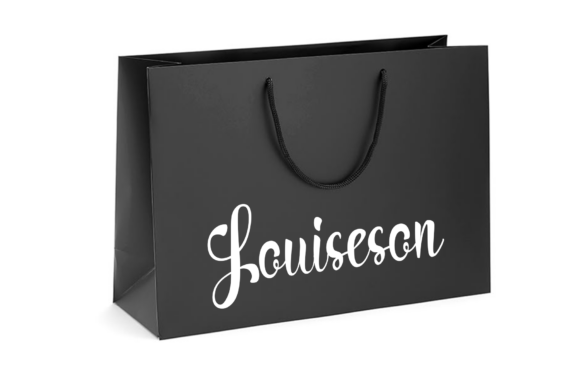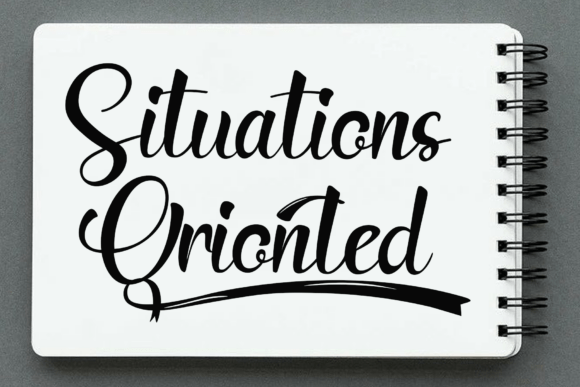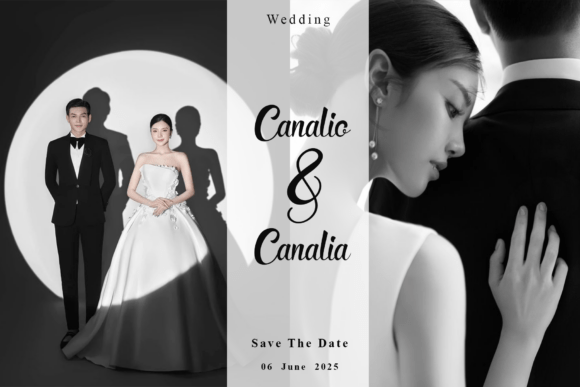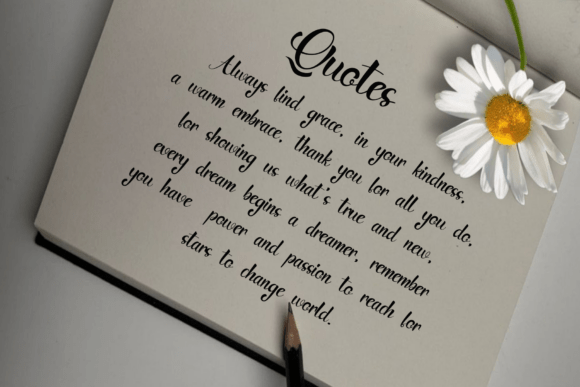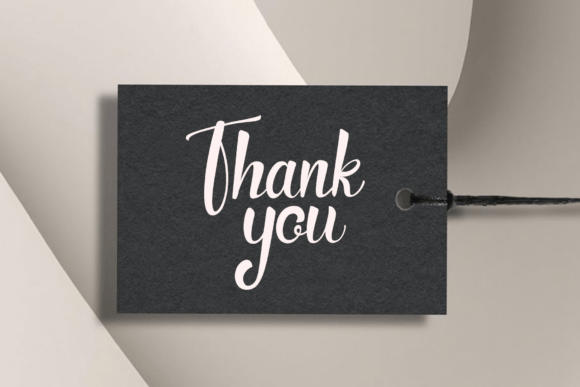
Introducing Graduation Font: Elevate Your Designs with Timeless Elegance
Are you looking for a font that exudes sophistication, elegance, and a touch of modernity? Look no further than Graduation Font, a stylish handwritten font that is sure to take your designs to the next level. Inspired by timeless classic calligraphy, Graduation Font boasts a contemporary atmosphere and impeccable form, making it the perfect choice for designers and crafters seeking to add a touch of refinement to their projects.
The Inspiration Behind Graduation Font
Graduation Font draws inspiration from the world of classic calligraphy, where the art of beautiful handwriting is revered. The font’s creator aimed to capture the essence of traditional calligraphy and infuse it with a modern twist, resulting in a unique and versatile font that is both elegant and approachable. With its balanced and varied letterforms, Graduation Font is designed to enhance the beauty of your projects, whether you’re working on a logo, branding materials, or digital content.
Key Features of Graduation Font
So, what sets Graduation Font apart from other fonts? Here are some of its key features:
- Handwritten with a personal touch: Graduation Font has a distinctly handwritten feel, with a personal touch that makes it relatable and engaging.
- Contemporary atmosphere: The font’s modern design ensures that it stays relevant and fresh, even in today’s fast-paced digital landscape.
- Impeccable form: Graduation Font’s letterforms are meticulously crafted to ensure that they are both aesthetically pleasing and highly legible.
- Balanced and varied: The font features a range of letterforms, ensuring that your text stays engaging and dynamic.
Use Cases for Graduation Font
Graduation Font is an incredibly versatile font that can be used in a wide range of design projects, including:
- Logo design: Create a lasting impression with a custom logo that showcases your brand’s personality and values.
- Branding materials: Use Graduation Font to create business cards, brochures, and other marketing materials that exude sophistication and elegance.
- Digital content: Add a touch of refinement to your blog posts, social media graphics, and website content with Graduation Font.
- Crafting and DIY projects: Graduation Font is also perfect for crafters and DIY enthusiasts looking to add a personal touch to their projects, such as handmade cards, invitations, and scrapbooking.
Tips for Using Graduation Font Effectively
To get the most out of Graduation Font, here are some tips to keep in mind:
- Experiment with font sizes: Graduation Font looks great in a range of font sizes, from large headings to smaller body text.
- Play with color: The font’s elegant design makes it a great choice for use with a range of colors and textures.
- Mix and match: Combine Graduation Font with other fonts to create a unique and eye-catching design.